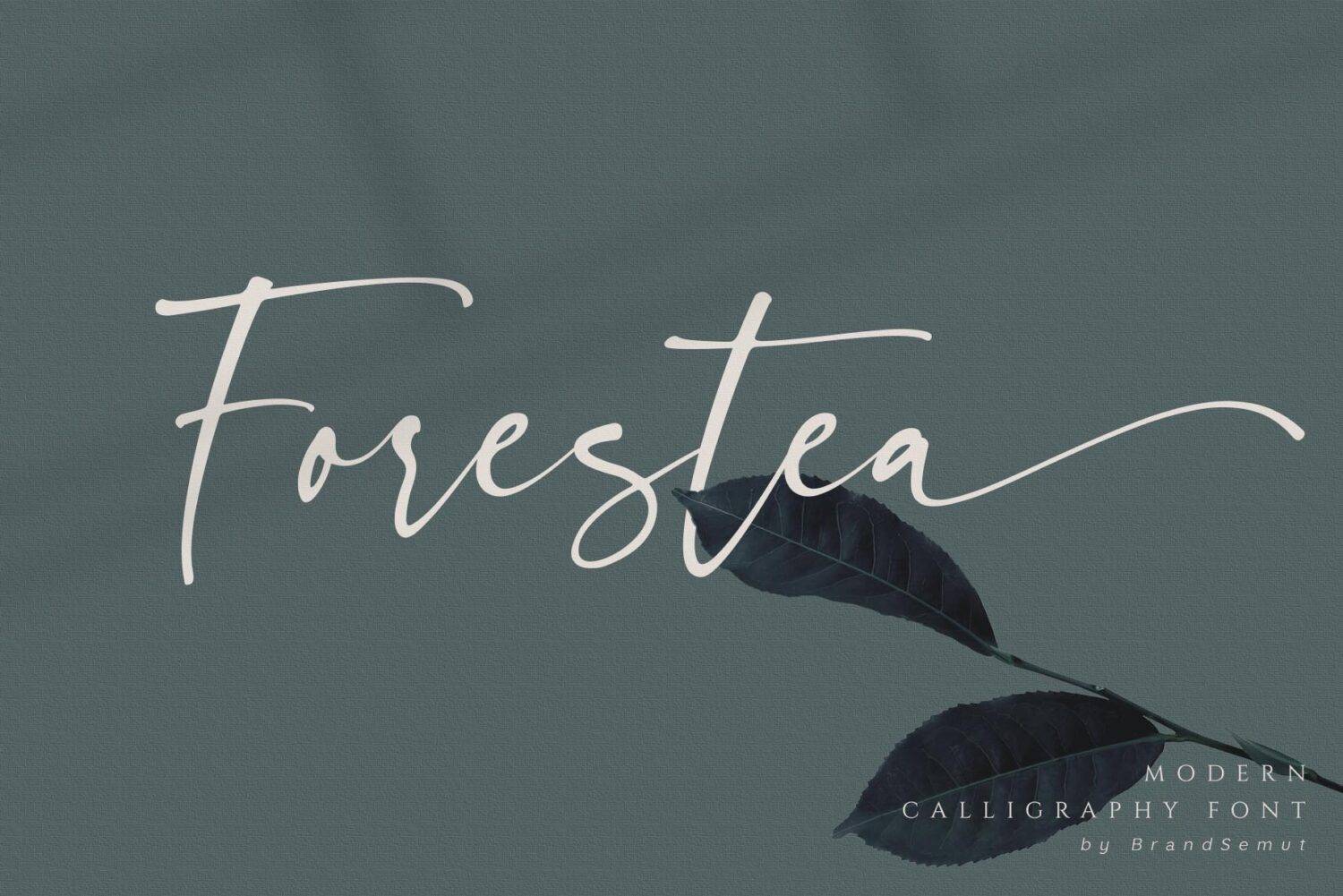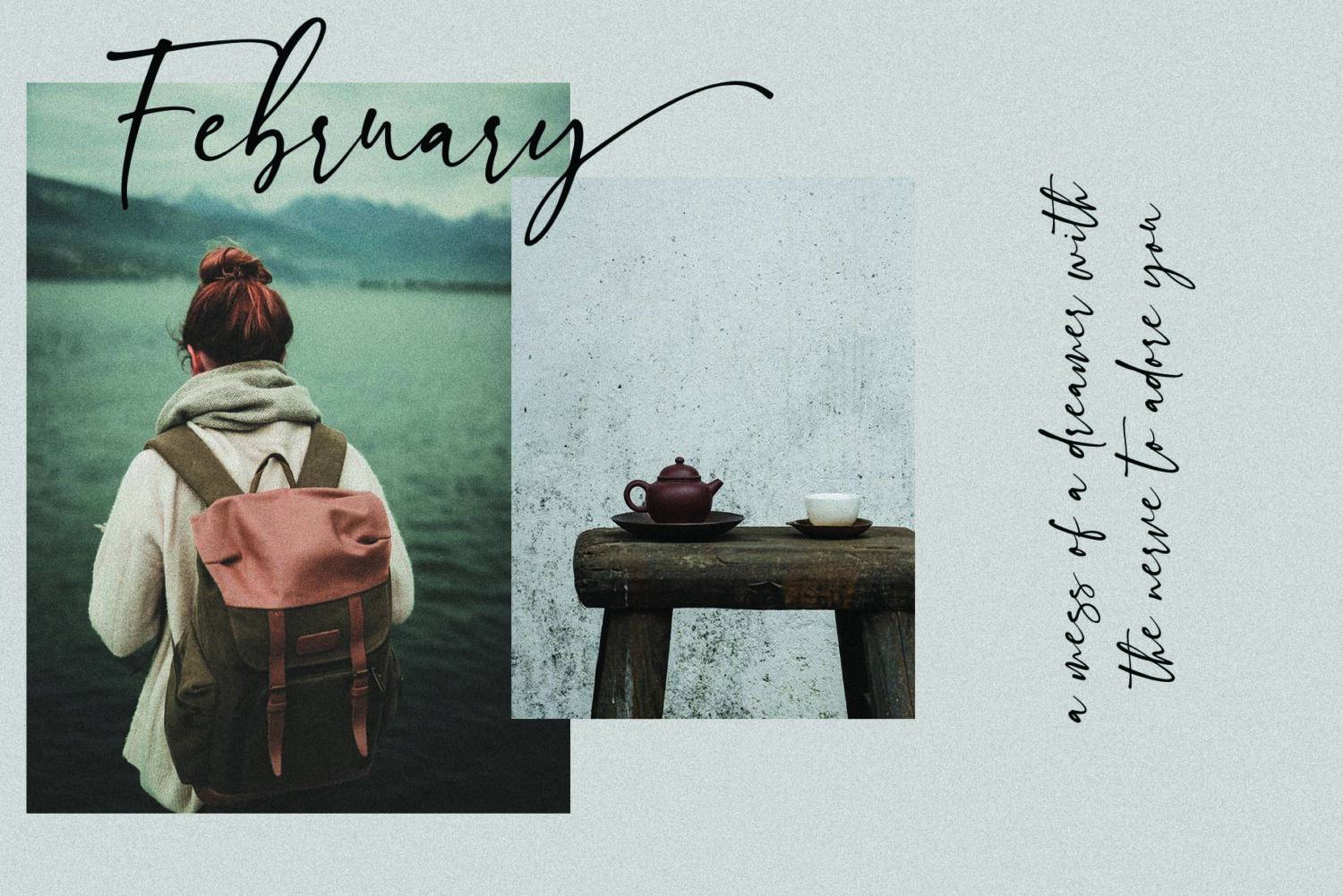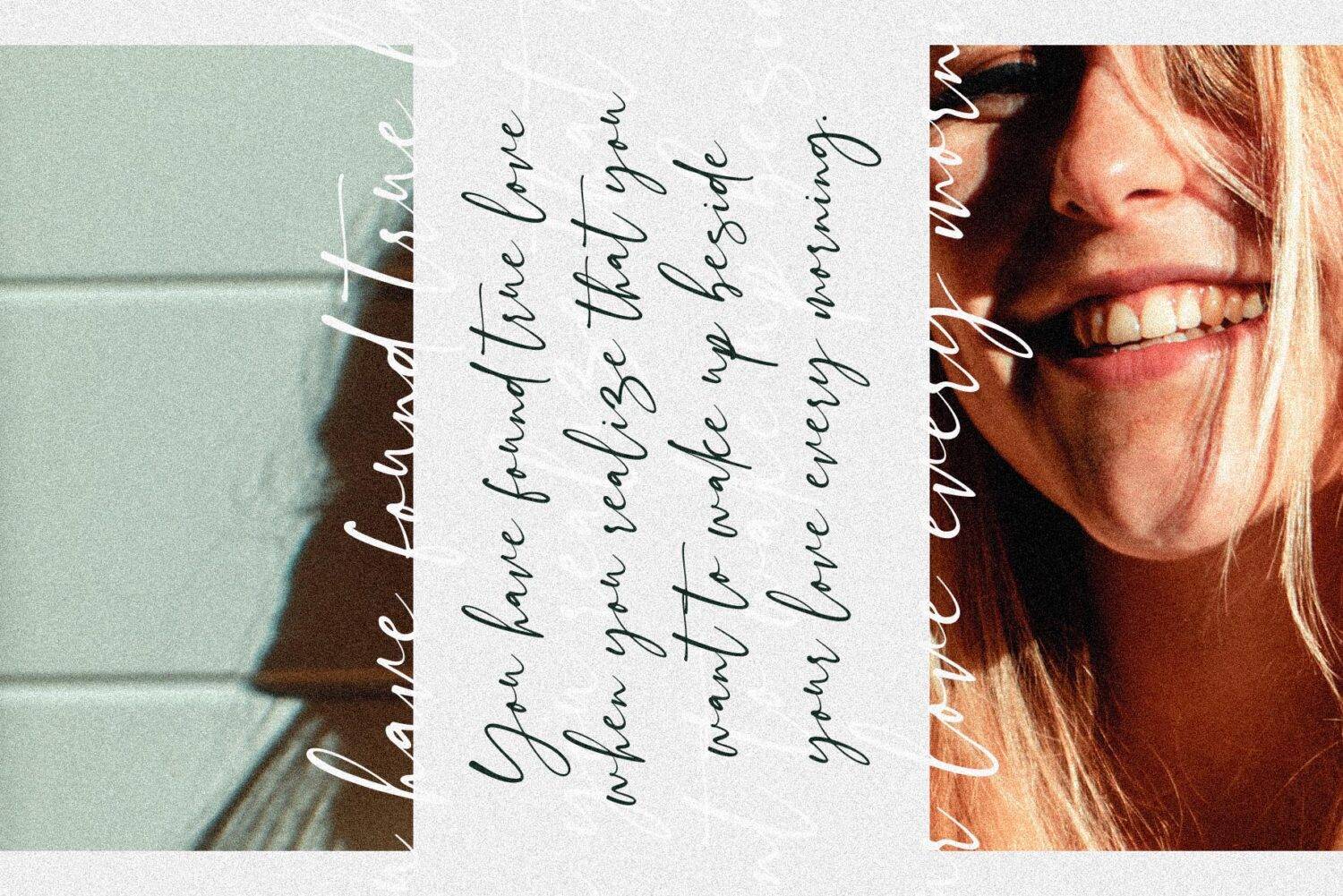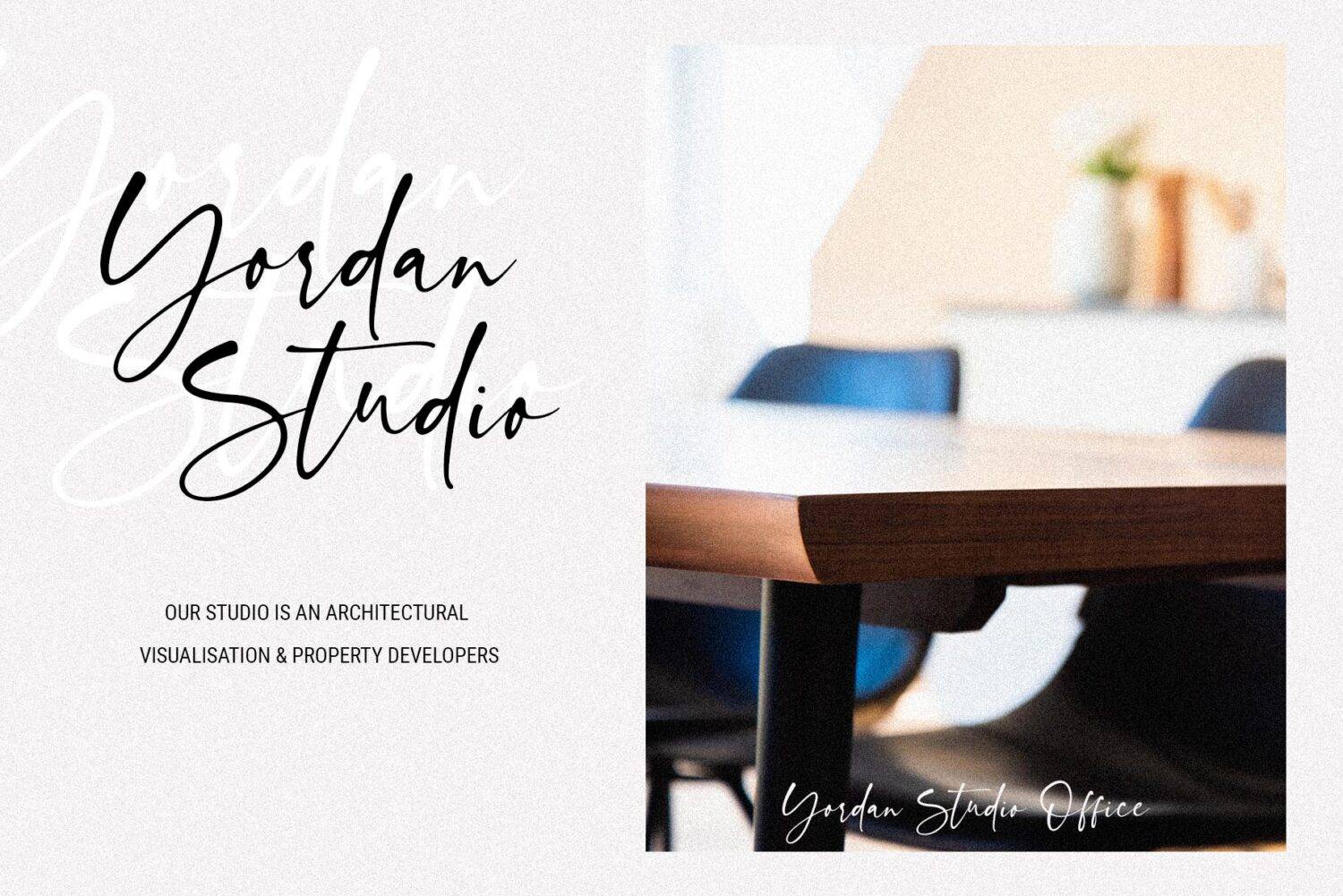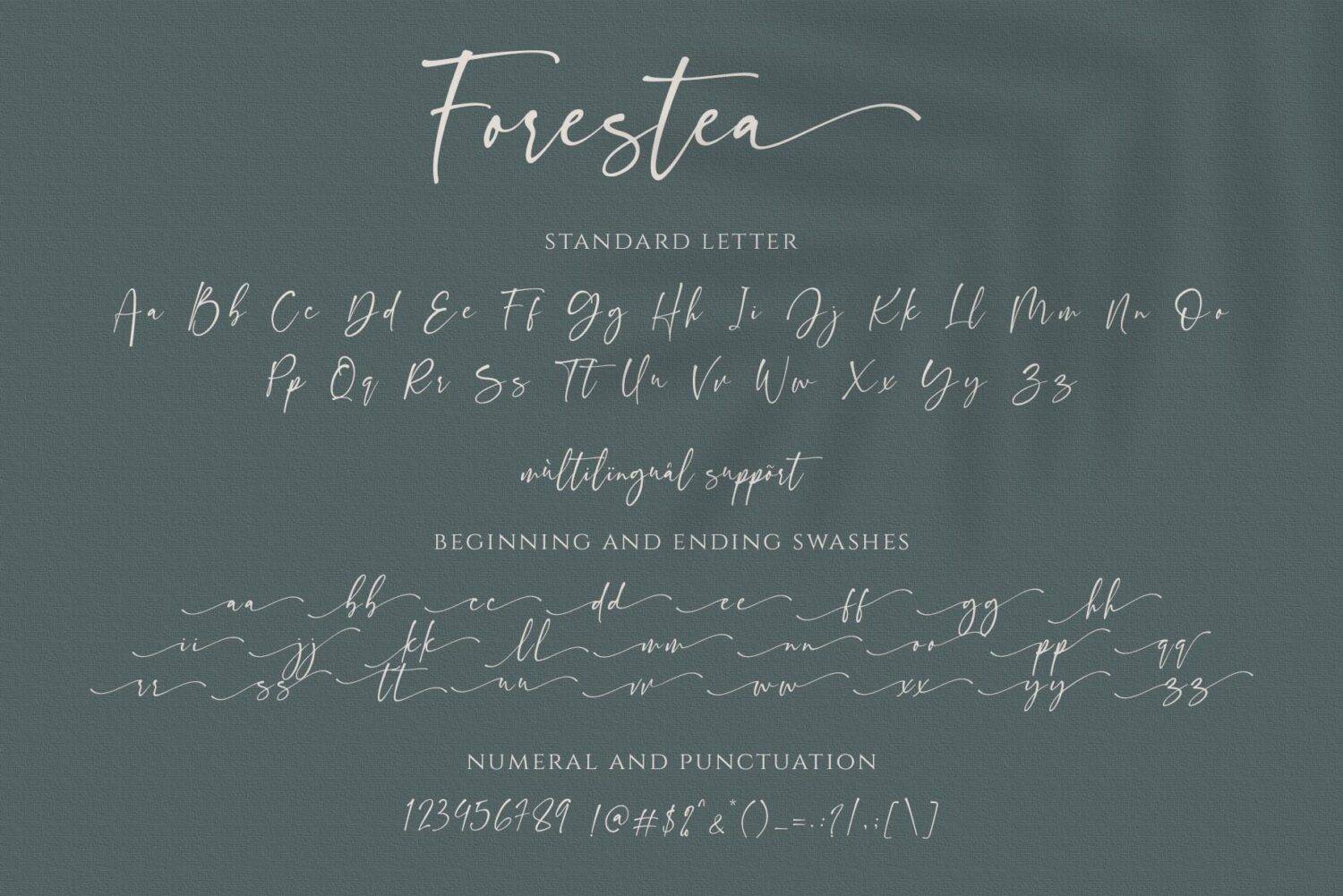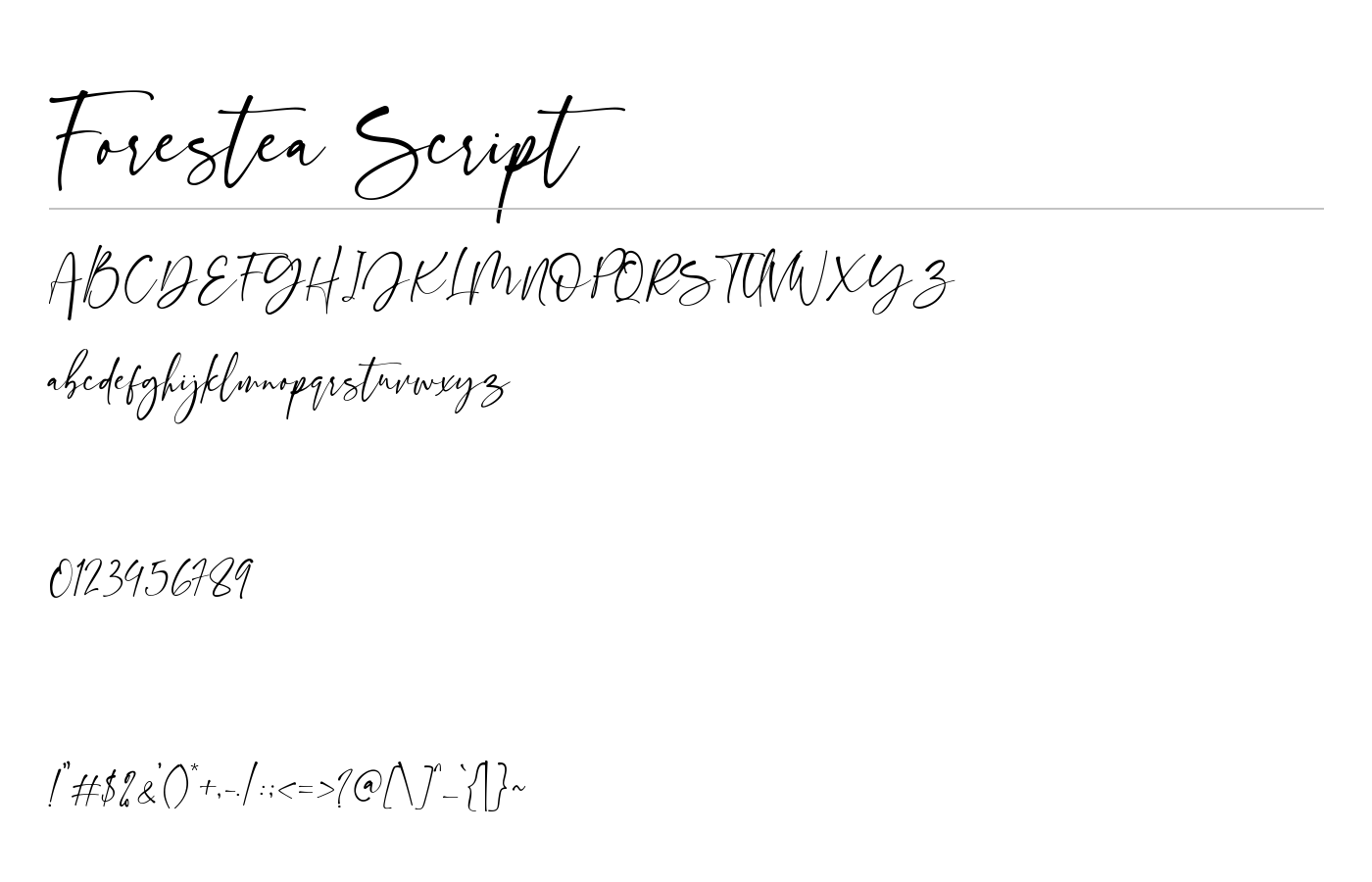
Forestea is a delicate, handwritten script font characterized by its thin, flowing strokes and elegant, slightly tall letterforms. It has a natural, organic feel with a casual yet refined personality, making it an excellent choice for invitations, branding, and editorial projects that seek a personal, stylish touch. Its light weight and airy spacing enhance readability while maintaining a charming, graceful appearance perfect for creative and feminine designs.
| Font family | Forestea Font |
| Languages supported | Latin, Greek, Thai, Symbols |
| Release date | 2020-01-23 |
| Designer | BrandSemut |